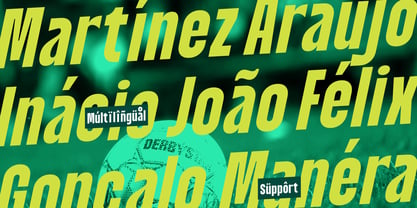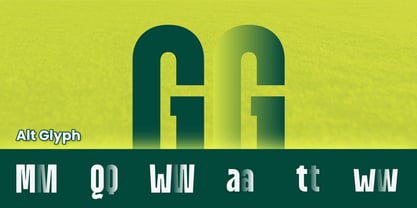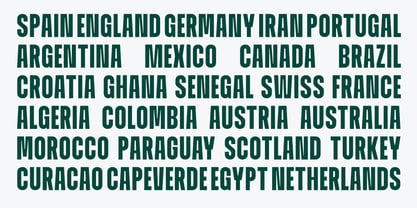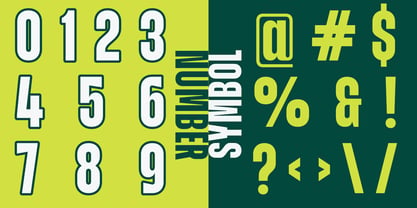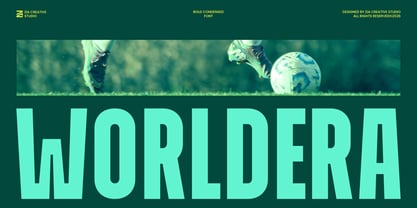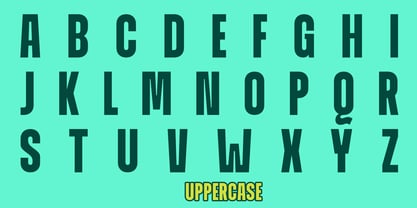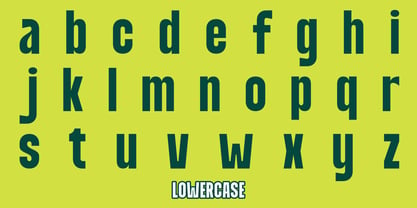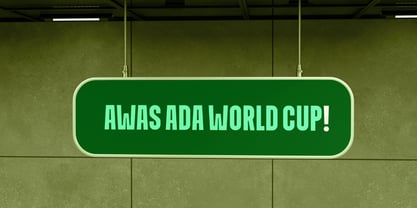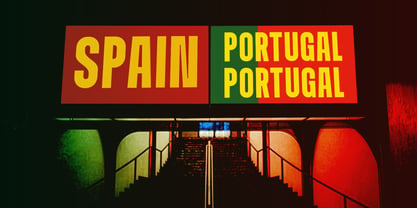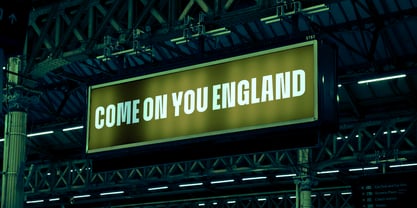
ZIA Worldera
by ZIA Creative Studio
The ZIA Worldera Font Family was designed by Zaidan Akbar and published by ZIA Creative Studio. ZIA Worldera contains 2 styles and family package options. More about this family
Woldera is a powerful and commanding condensed bold sans-serif typeface crafted by Zia Creative Studio, designed to transform spatial limitations into creative strength. Its tall, imposing structure and high-impact weight make it the ultimate choice for striking displays and authoritative visual communication. Ideal for impactful posters and flyers, modern branding and logo design, editorial headlines and magazine covers, bold packaging design, as well as apparel and streetwear typography, Woldera excels in versatility and strong presence, making it a standout option for various design applications.
Designers: Zaidan Akbar
Foundry: ZIA Creative Studio